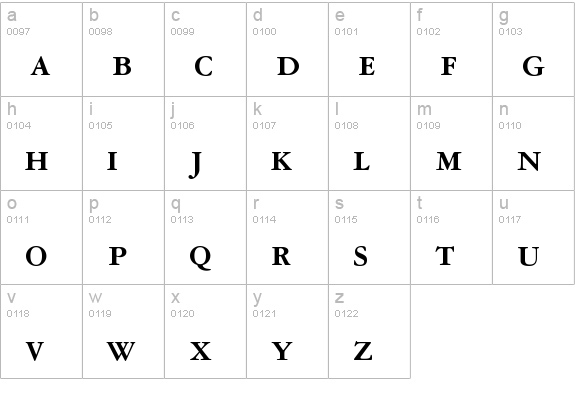
Garamond Reprise OldStyle SSi Bold Small Caps Font Details
Garamond Reprise OldStyle SSi Bold Small Caps is a strong, high-contrast variant in the Garamond typeface family \xE2\x80\x94 well suited to headlines, attention-grabbing titles, and strong calls-to-action.
Garamond Reprise OldStyle SSi Bold Small Caps font is a captivating and timeless typeface that embodies elegance and sophistication. With its bold and refined small caps, this font exudes a sense of authority and class, making it a perfect choice for various design projects. The Garamond Reprise OldStyle SSi Bold Small Caps font showcases a harmonious blend of classic and modern aesthetics. Its graceful curves and delicate serifs pay homage to the traditional Garamond typeface, while the bold weight and small caps add a contemporary twist, making it versatile for both print and digital media. This font is meticulously designed to capture attention and evoke a sense of professionalism. Whether used for headings, logos, posters, or any other design application, Garamond Reprise OldStyle SSi Bold Small Caps font effortlessly commands attention and leaves a lasting impression. What makes Garamond Reprise OldStyle SSi Bold Small Caps font even more appealing is that it is freely available to download at FontsMarket.com. This means that designers and enthusiasts alike can easily access this incredible font without any cost, allowing for unlimited creativity and exploration. Whether you are a professional designer or a typography enthusiast, Garamond Reprise OldStyle SSi Bold Small Caps font offers an incredible opportunity to elevate your design projects. Its combination of classic charm and contemporary flair ensures that your creations will stand out and make a lasting impact. So, unleash your creativity and download this remarkable font for free at FontsMarket.com today!